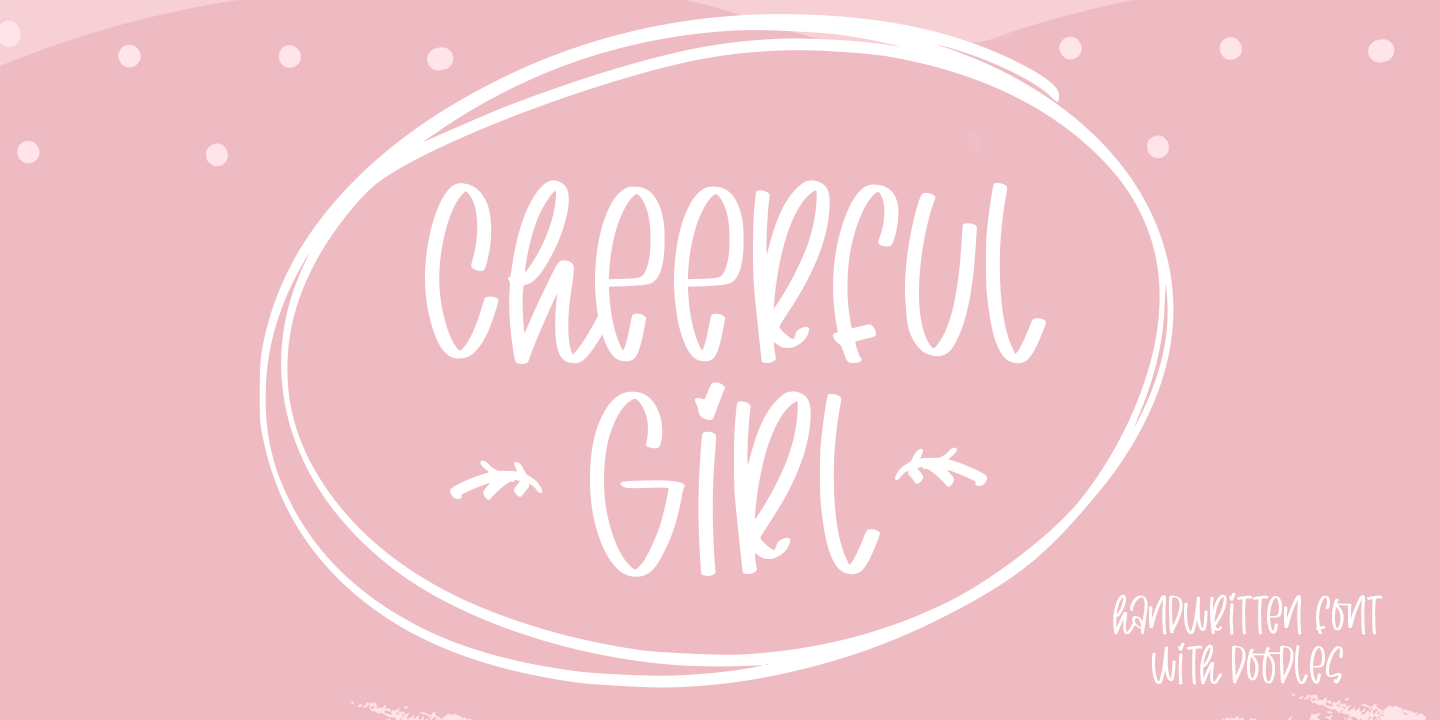
The Cheerful Girl Font is a wonderfully playful and energetic handwritten typeface, characterized by its bouncy, whimsical forms and a vibrant, innocent charm. Imagine its lively characters gracing the titles of children's storybooks, adding a fun and quirky touch to toy packaging, or creating delightful headlines for school event posters and birthday party invitations. Its exaggerated shapes, often with a hand-drawn or slightly irregular feel, also make it an excellent choice for unique greeting cards, joyful social media graphics, creative craft projects, and any design where a lighthearted, imaginative, and approachable feel is desired. Whether you're aiming for a cheerful, childlike look or a distinctly artistic touch with a carefree flair, Cheerful Girl Font delivers with its undeniable personality, ensuring your visuals are both inviting and truly memorable.
What makes Cheerful Girl Font so exciting is its ability to infuse designs with immediate joy and a sense of boundless imagination. In a visual landscape that often benefits from a touch of lightness and fun, this font offers a refreshing alternative that captures attention with its distinctive and energetic letterforms. It’s more than just a typeface; it’s a tool for storytelling, allowing designers to convey warmth, playfulness, and a sense of adventure effortlessly. This font excels at creating an emotional connection with the audience, making content feel more accessible and enjoyable, particularly for younger demographics or projects with a whimsical theme. Designers will find it an invaluable asset for creative projects that require a unique visual identity that truly stands out from the crowd.
The Cheerful Girl Font family is typically designed to offer a delightful range of styles, enhancing its versatility across various creative applications. Beyond the foundational Cheerful Girl Regular typeface, you might discover playful companion styles such as a slightly bolder Cheerful Girl Bold for stronger emphasis, or subtle Cheerful Girl Outline or Cheerful Girl Shadow versions that add a different visual texture and dimension. Given its whimsical and often cartoon-inspired nature, the family may also include unique ligatures, alternate characters, or dingbats that perfectly complement its overall character, allowing for even greater customization. These diverse family members provide designers with the flexibility to craft engaging typographic compositions, ensuring visual consistency and maximum creative expression from prominent titles to smaller decorative elements, all while maintaining the font’s inherent charm.